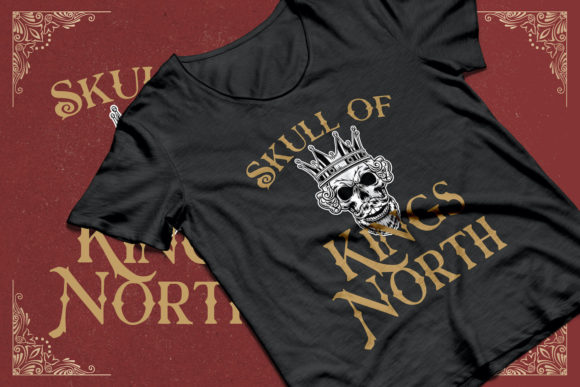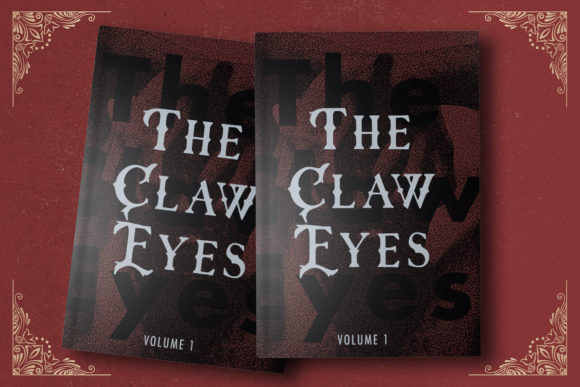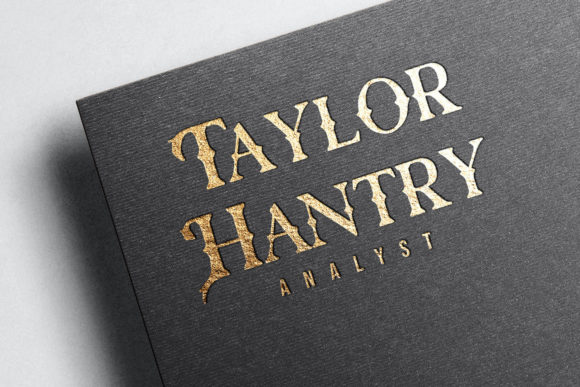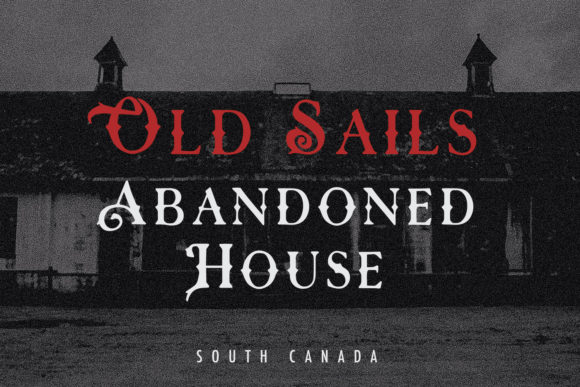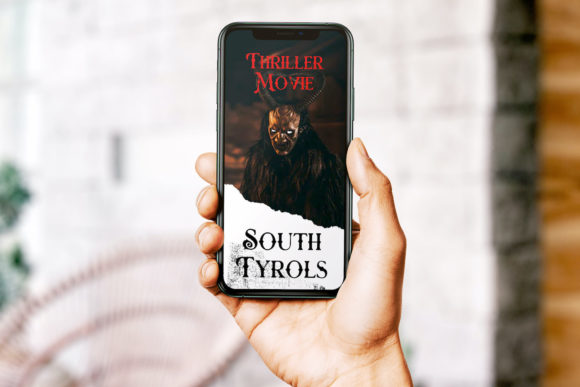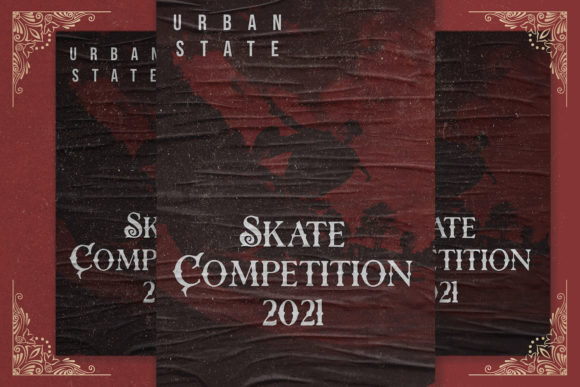
Introduction to Rose Knight Font Font
Fonts play a crucial role in design, and the Rose Knight Font font is a typeface that brings both character and versatility to any project. Whether you’re working on a branding project, a website, or a print design, the Rose Knight Font font offers a unique style that can elevate your work.
Rose Knight is a unique, stylish and elegant vintage blackletter font.
This typeface will look truly outstanding in a wide range of contexts .
Key Features of Rose Knight Font Font
Why Choose Rose Knight Font Font?
The Rose Knight Font font is more than just a typeface – it’s a design tool that helps you communicate your message with style and clarity. Its unique character set and versatile design make it suitable for a wide range of applications, from elegant invitations to bold headlines.
With its carefully crafted letterforms and balanced proportions, the Rose Knight Font font ensures readability and visual appeal across all mediums.
What makes Rose Knight Font font special?
The Rose Knight Font font stands out with its unique design, exceptional readability, and versatility across various design applications.